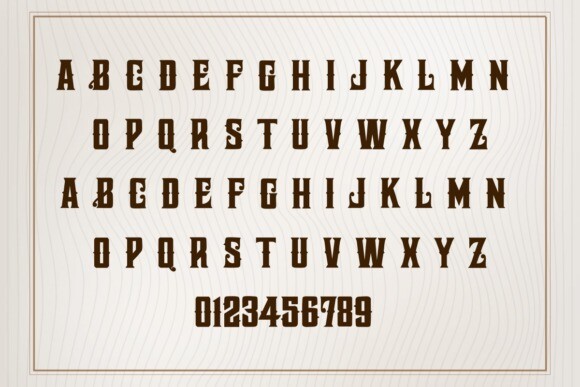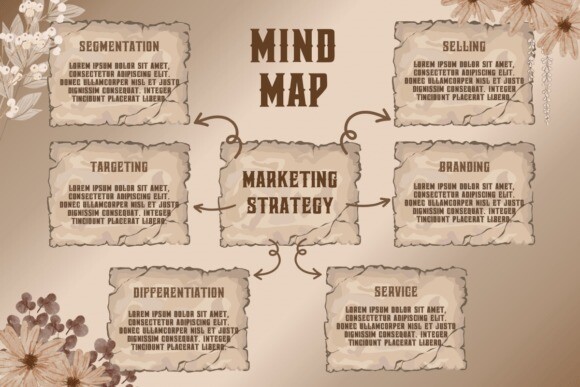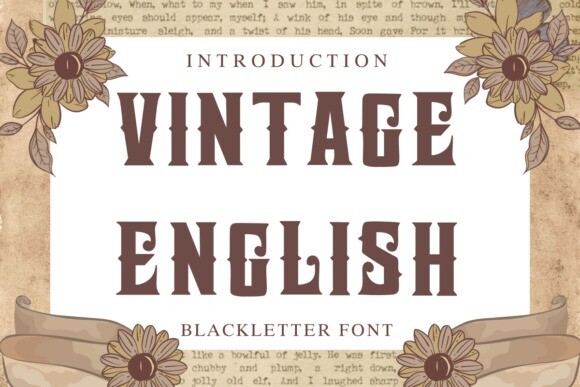
Vintage English Font
Vintage English Font is a classic blackletter font that features ornate, medieval-style letters. Its design includes sharp angles and flowing curves, giving it a traditional and elegant look. This font is often used for old-fashioned invitations, posters, and books to evoke a sense of history and charm.